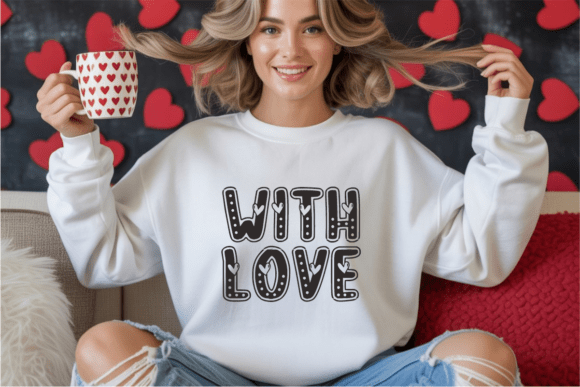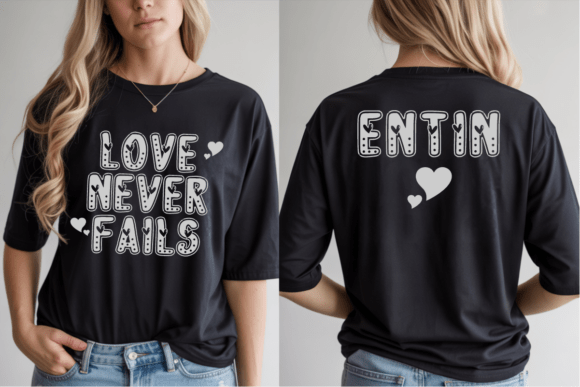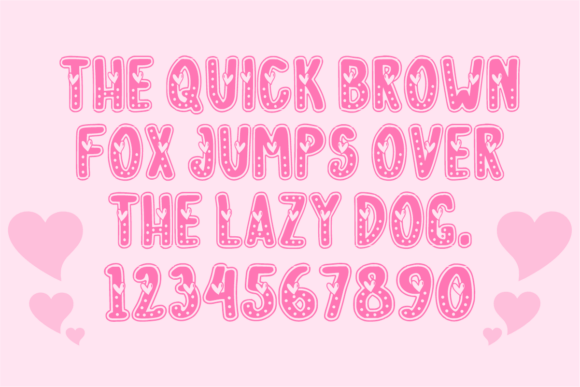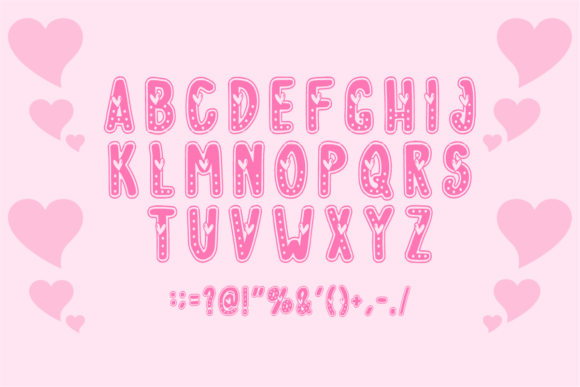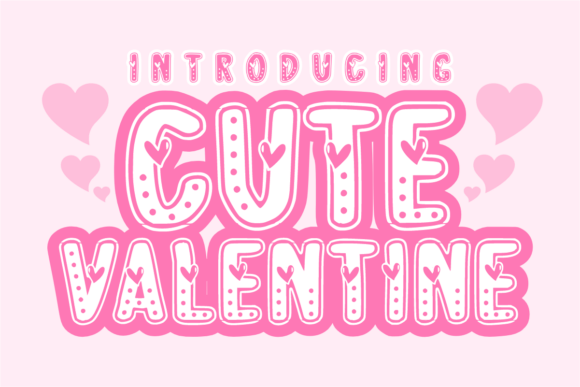
Cute Valentine Font: The Ultimate Choice for Romantic Designs
Are you looking for a font that captures the spirit of romance and adoration? Look no further than Cute Valentine, a charming Valentine-themed decorative font that’s perfect for expressing your affection. With its soft, rounded outlines and delightful heart accents, this whimsical typeface is sure to add a touch of love to any project.
What Makes Cute Valentine Font So Special?
Cute Valentine is more than just a font – it’s a way to convey your emotions and make your designs stand out. This sweet font is bursting with love, making it the ultimate choice for Valentine’s Day crafts, romantic greeting cards, adorable apparel, wedding announcements, and charming children’s designs. Whether you’re a designer, crafter, or simply someone who loves to create, Cute Valentine is a fantastic addition to your font library.
One of the best things about Cute Valentine is its versatility. This font can be used for a wide range of projects, from logos and greeting cards to mugs and t-shirts, invitations, creative crafts, comics, and more. Whatever the theme, Cute Valentine has the potential to enhance any creation and add a touch of romance and whimsy.
Key Features of Cute Valentine Font
- Soft, Rounded Outlines: Cute Valentine features soft, rounded outlines that give it a sweet and charming appearance.
- Heart Accents: The font is dotted with delightful heart accents, perfectly capturing the spirit of romance and adoration.
- Whimsical Typeface: Cute Valentine is a whimsical typeface that’s perfect for adding a touch of love to any project.
- Easy to Read: Despite its decorative nature, Cute Valentine is easy to read, making it perfect for use in a variety of projects.
Why Designers and Crafters Love Cute Valentine
Cute Valentine has quickly become a favorite among designers and crafters, and for good reason. This font is perfect for anyone who wants to add a touch of romance and whimsy to their designs. Whether you’re creating Valentine’s Day crafts, romantic greeting cards, or adorable apparel, Cute Valentine is the perfect choice.
Tips for Using Cute Valentine Font
Here are a few tips for getting the most out of Cute Valentine:
- Use it for Valentine’s Day Crafts: Cute Valentine is perfect for Valentine’s Day crafts, such as making cards, gift tags, and other decorations.
- Pair it with Other Fonts: Cute Valentine pairs well with other fonts, so don’t be afraid to experiment with different combinations.
- Use it for Wedding Announcements: Cute Valentine is also perfect for wedding announcements, adding a touch of romance and whimsy to your design.
- Get Creative: Don’t be afraid to get creative with Cute Valentine. Use it for logos, mugs, t-shirts, and other unique projects.
In conclusion, Cute Valentine is a romantic Valentine-themed decorative font that’s perfect for expressing your affection. With its soft, rounded outlines and delightful heart accents, this whimsical typeface is sure to add a touch of love to any project. Whether you’re a designer, crafter, or simply someone who loves to create, Cute Valentine is a fantastic addition to your font library.